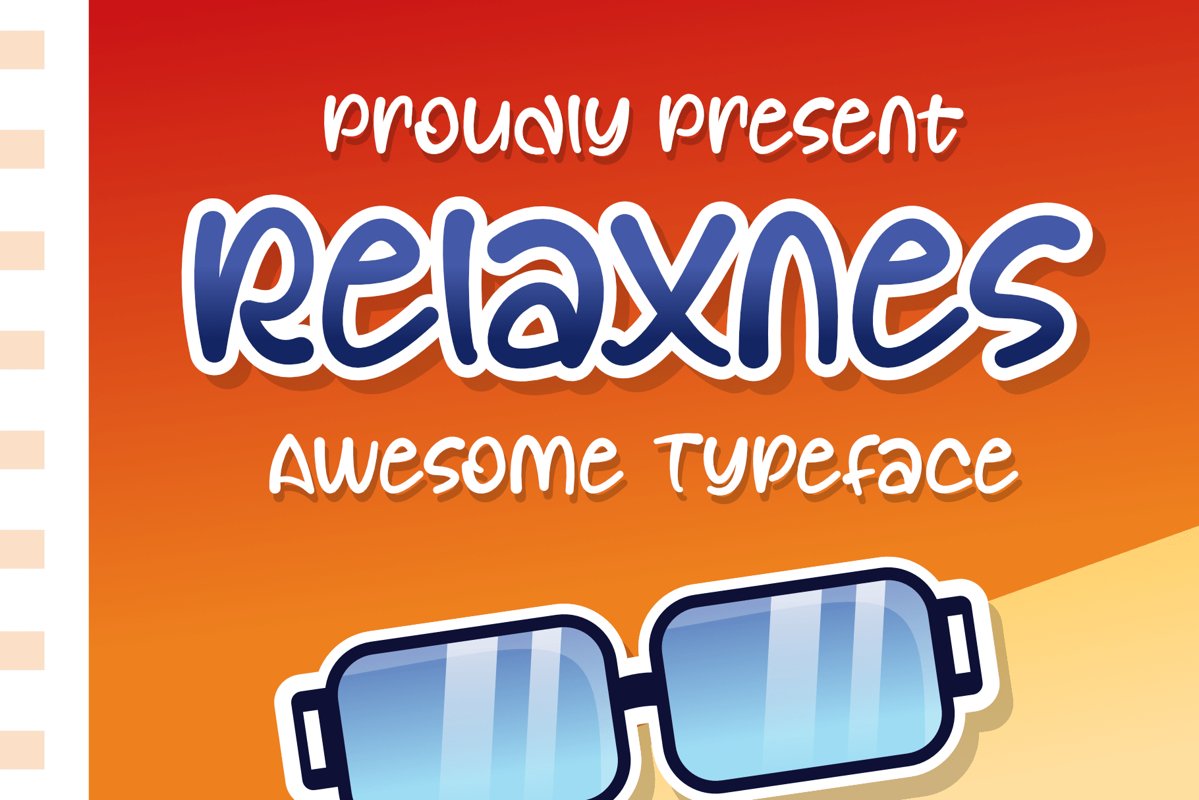
Relaxnes
Relaxnes is a unique style font that can be used for various types of designs, designs suitable for this font can be used in social media branding, t-shirt designs, titles, typography, unique quotes, food promos and more.